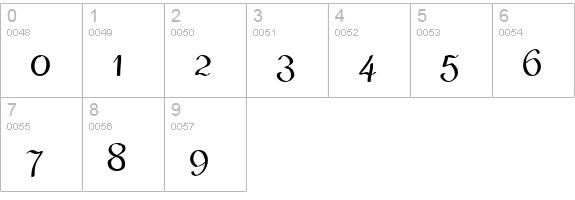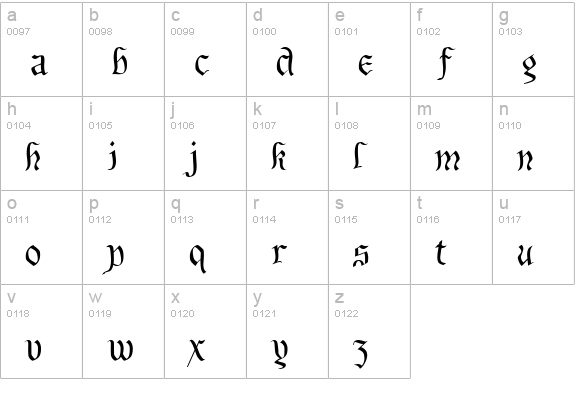
Halloween_BeneCryptine Font Details
Halloween_BeneCryptine font is a frightfully fun and hauntingly beautiful typeface perfect for all your Halloween design projects. With its intricate and spooky letterforms, this font adds a touch of macabre elegance to any text. Whether you're designing party invitations, creating Halloween-themed artwork, or simply adding a spooky touch to your social media posts, Halloween_BeneCryptine font is the perfect choice to set the mood. This font captures the essence of the Halloween spirit with its unique combination of vintage gothic elements and modern design aesthetics. Each letter is meticulously crafted to evoke a sense of mystery and enchantment, making it the ideal choice for all your Halloween-themed design needs. But what sets Halloween_BeneCryptine font apart is that it is not only stunningly captivating, but it is also free! That's right, this amazing font is freely available to download at FontsMarket.com. Now you can add a touch of spookiness to your designs without breaking the bank. Whether you're a professional designer or just someone who loves to get creative during the Halloween season, Halloween_BeneCryptine font is a must-have in your font collection. Its versatility and eye-catching design make it the perfect choice for a wide range of projects. So don't miss out on this fantastic opportunity to add a touch of Halloween magic to your designs. Download Halloween_BeneCryptine font for free at FontsMarket.com and let your creativity run wild this spooky season.